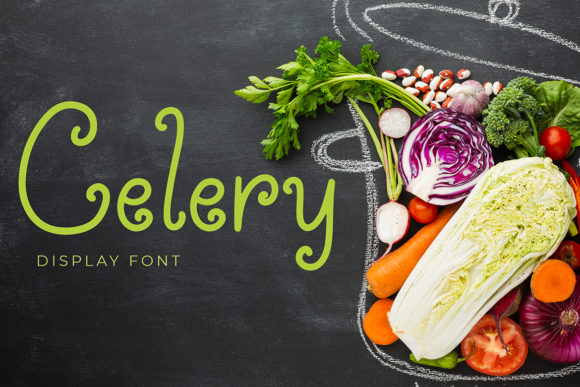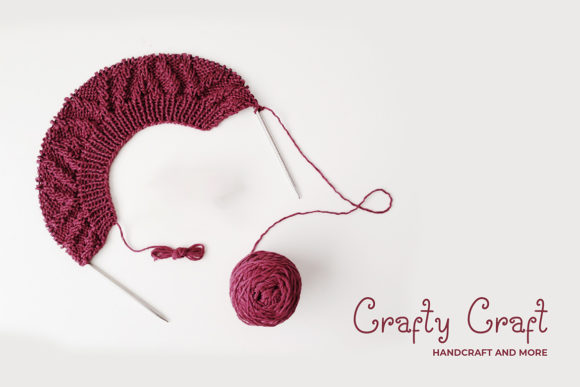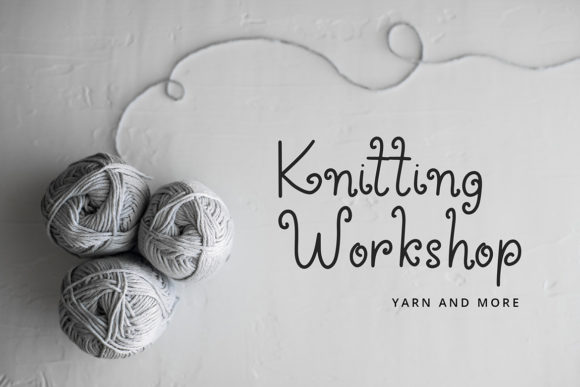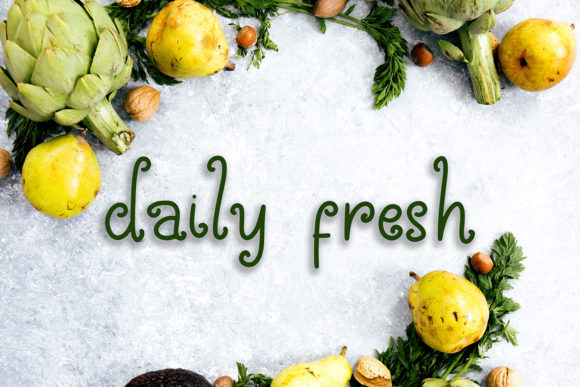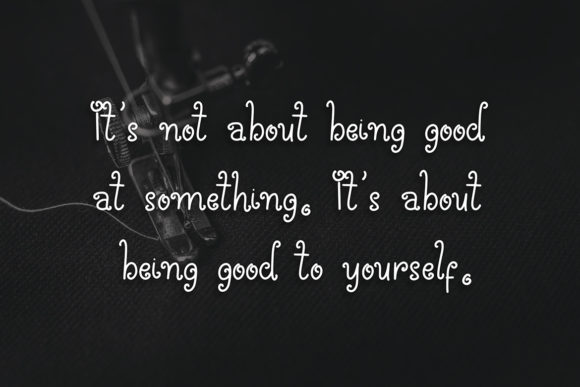
The Perfect Crunch for Your Creative Projects
You know that moment when a spark of creativity strikes, and you can’t wait to bring your ideas to life? That’s exactly what happened when designers discovered the Celery Font. This playful modern display font is more than just a pretty face – it’s the perfect fit for all your logos, branding, social media, and crafty DIY projects!
Whether you’re a seasoned pro or a beginner, the Celery Font offers a fresh and exciting way to express yourself. With its versatility and modern feel, it’s a valuable addition to any designer’s toolkit. Imagine being able to add a touch of whimsy and personality to your designs with just a few clicks – that’s the magic of the Celery Font.
Get ready to elevate your creative projects with the Celery Font – your next big idea is just a font away!
Celery Font Key Features
- Font Family: Celery is a sans-serif font family designed by TypeTogether.
- Font Sizes: Celery Font comes in 6 weights: Light, Regular, Book, Medium, Bold, and Black, with corresponding font sizes ranging from 10 to 72 points.
- Unique Characteristics: Celery Font features a unique blend of modern and traditional typography, with a strong emphasis on legibility and readability.
Celery Font Review
Celery Font is a unique, hand-drawn sans-serif typeface that can add a touch of whimsy to your design projects. ✨ Here are some of the things that work well in this font:
- Quirky charm: Celery Font’s irregular shapes and imperfections give it a friendly, approachable feel that’s perfect for designs that need a bit of personality.
- Customizability: The font comes in a range of weights and styles, making it easy to find the right fit for your project.
- Playful vibe: Celery Font is perfect for designs that need a lighthearted, carefree feel – think food blogs, children’s books, or advertising campaigns.
- Legibility: While Celery Font is great for creative projects, it may not be the best choice for text-heavy designs or situations where clarity is crucial.
- Compatibility: Some users have reported issues with the font’s compatibility across different operating systems and devices.
Overall, I think Celery Font is a great choice for designers who want to add a touch of personality to their projects. While it may not be suitable for every design scenario, its unique charm and customizability make it a valuable addition to any font collection. ⚠️ Just be sure to test it thoroughly in different contexts before committing to a project.
To get the most out of Celery Font, experiment with different font sizes, colors, and styles to create visually appealing designs. You can also pair Celery Font with other fonts to create a unique and eye-catching combination.
Celery Font is commonly used in food-related designs, such as menus, recipes, and cooking-themed graphics. It is also used in packaging design, custom logos, and labels.